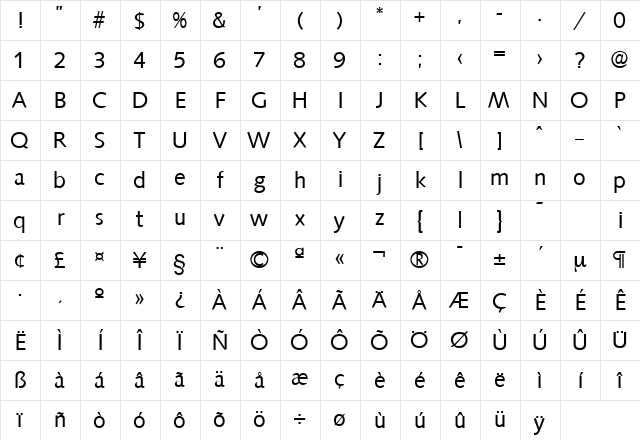
Saxony-Serial DB Regular
Design Context for Saxony-Serial DB
Saxony-Serial DB is a composed and adaptable typeface that performs quietly and consistently across a wide range of design contexts.
Pro Tip: Use Saxony-Serial DB in both headline and body roles to test its range before committing to a single application.